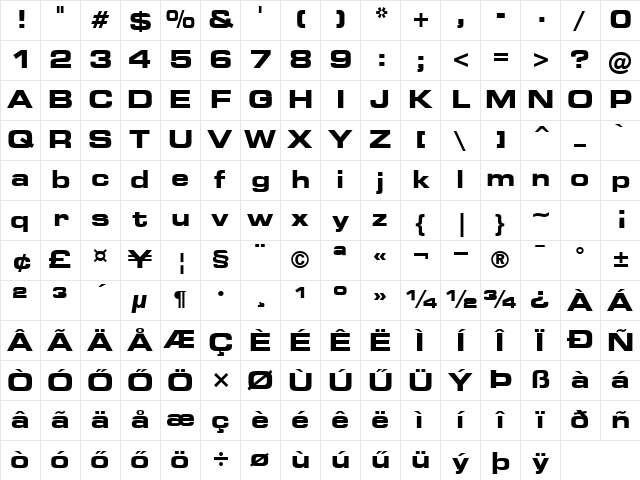
Complete H_Square 721 Extended BT Bold glyph index. Displaying only characters natively supported by H_Square 721 Extended BT Bold font.
H_Square 721 Extended BT is a composed and adaptable typeface that performs quietly and consistently across a wide range of design contexts. Its bold stroke weight gives it real presence on the page.